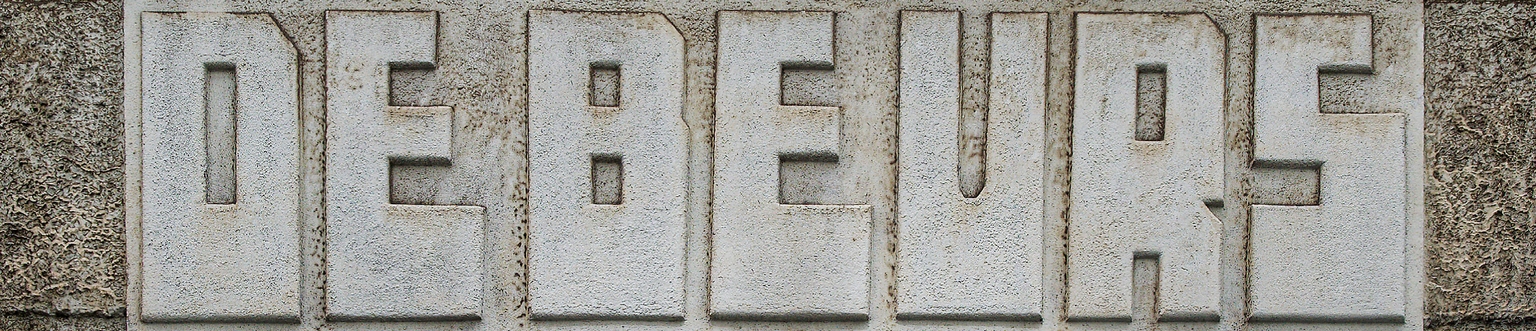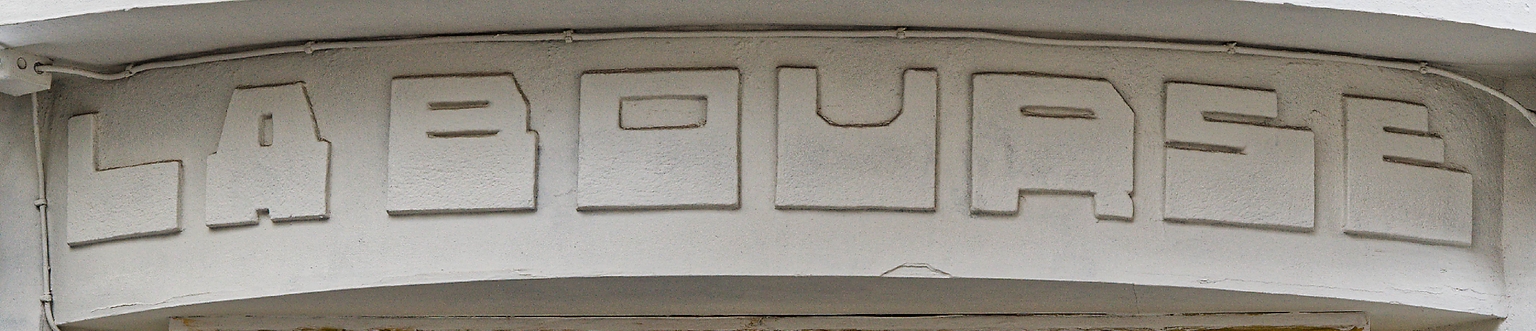
Rebus
- Condensed
- SemiCondensed
- Normal
- SemiExpanded
- Expanded
Rebus is a modular, blockish, and curve-free typeface designed by Daniel Calders, inspired by the lettering found on the façade of the building at Lange Koepoortstraat 59 in Antwerp, Belgium. The bold, geometric forms of the original letters provide a striking visual identity, while the numerals, diacritics, and additional glyphs draw inspiration from numerous alphabets created by Dutch architects in the 1920s, extending the design into a complete and cohesive system.
With its strong modular construction and uncompromising minimalism, Rebus is ideal for applications that demand impact and clarity. It is well suited for websites, posters, packaging, signage, as well as architecture and modern art museum catalogues. By combining historical influences with contemporary design sensibilities, Rebus offers a versatile tool for designers seeking a typeface that is simultaneously rooted in early 20th-century modernist lettering and fully adapted for today’s visual communication needs.